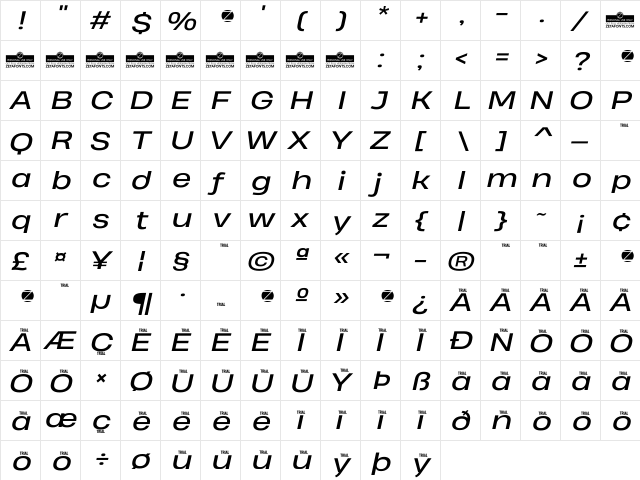
Heading Pro Wide Trial Italic
| Foundry | Studio Kmzero & Zetafonts |
| Designer | Francesco Canovaro |
Design Context for Heading Pro Wide Trial Typeface
Heading Pro Wide Trial takes a measured approach to typography — its balanced proportions and neutral character make it a reliable workhorse for both digital and print work. The dynamic lean of this cut emphasises speed and emphasis in any layout.